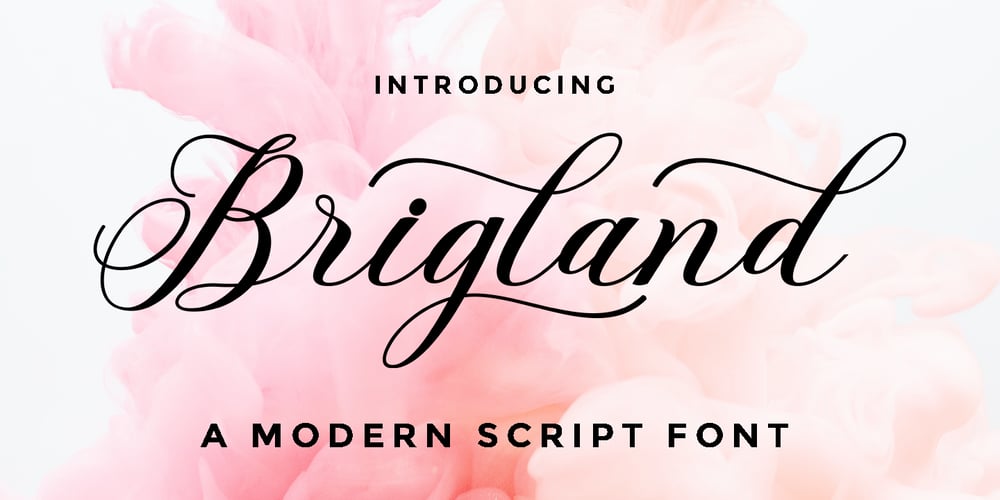
Brigland Script Font Family was designed by Romi Rahmadi and published by Romie Creative. Brigland Script contains 1 styles and family package options. Brigland Script is a modern calligraphy font and includes beautiful swashes. It works well in various purposes such as logos, product packaging, wedding invitations, branding, headlines, signage, labels, signatures, book covers, posters, quotes and more.Brigland Script supports changing OpenType languages, binders and international support for most Western languages. To activate the OpenType Stylistic alternative, you request a program that supports OpenType features such as Adobe Illustrator CS, Adobe Indesign & CorelDraw X6-X7, Microsoft Word 2010 or newer versions. How to access all alternative characters using Adobe Illustrator:https://www.youtube.com/watch?v=XzwjMkbB-wQBrigland Script is coded with Unicode PUA, which allows full access to all additional characters without having to install special software. Mac users can use the Font Book, and Windows users can use the Character Map to view and use one of the additional characters to paste into your favorite text editor / application. How to access all alternative characters, use Windows Character Map with Photoshop:https://www.youtube.com/watch?v=Go9vacoYmBwIf you need help or have questions, please let me know. I am happy to help ๐ Thank you & Happy Designing!